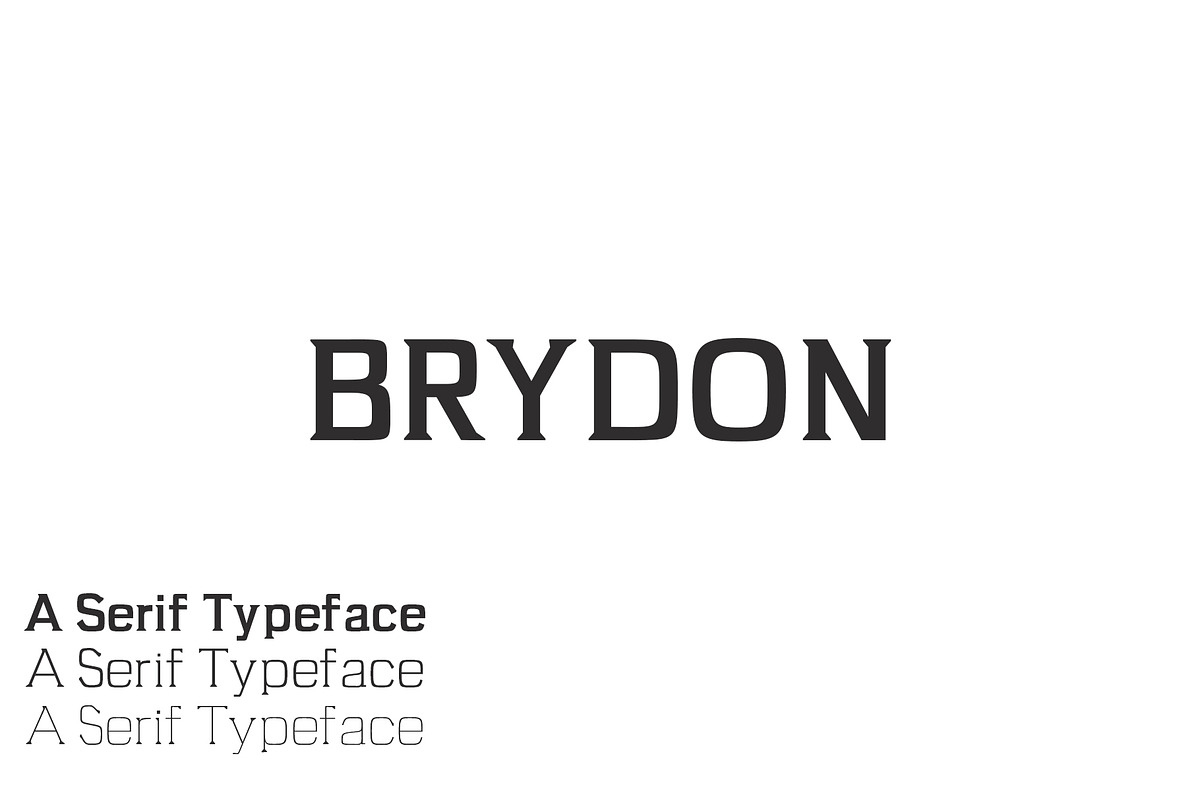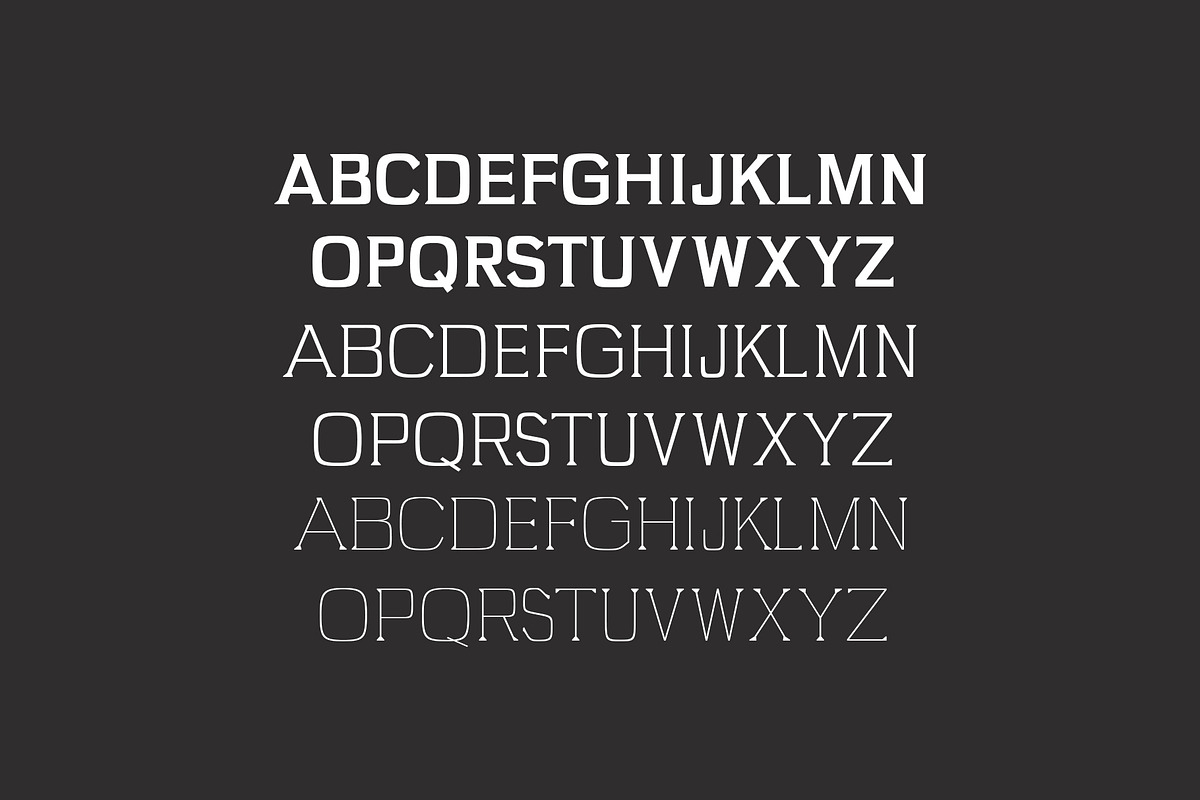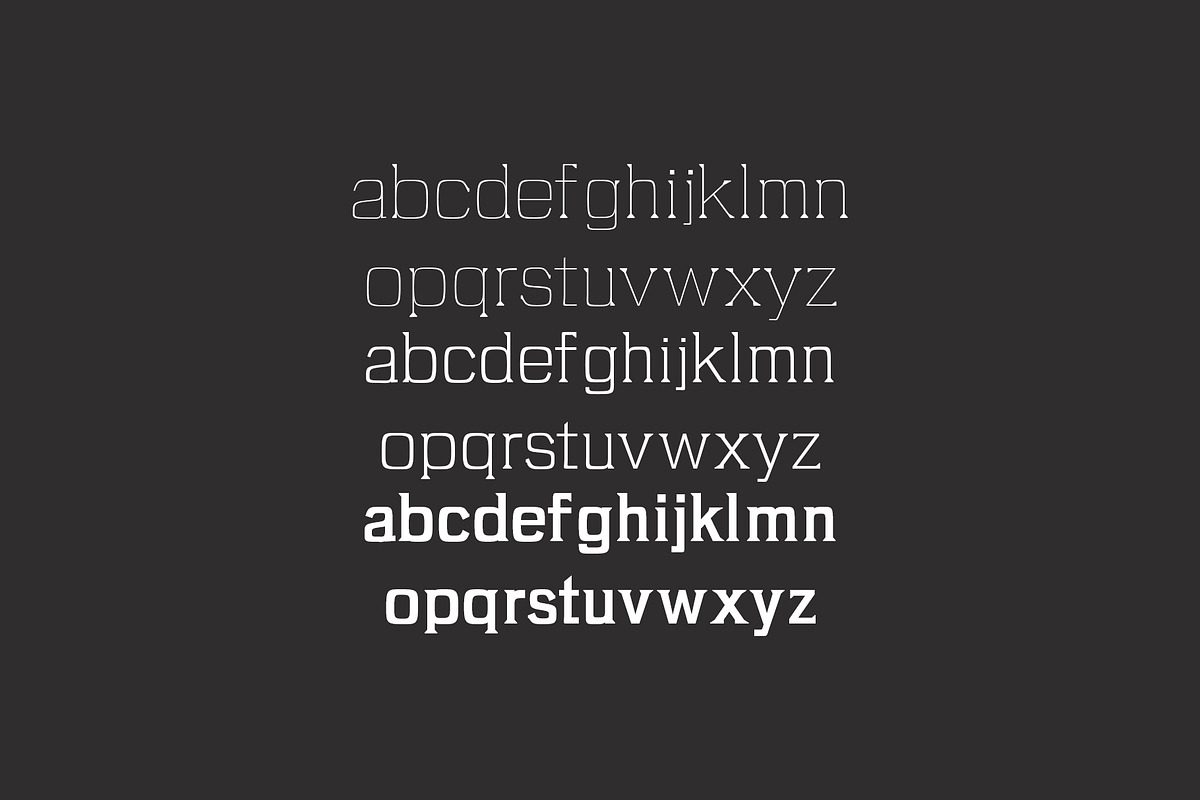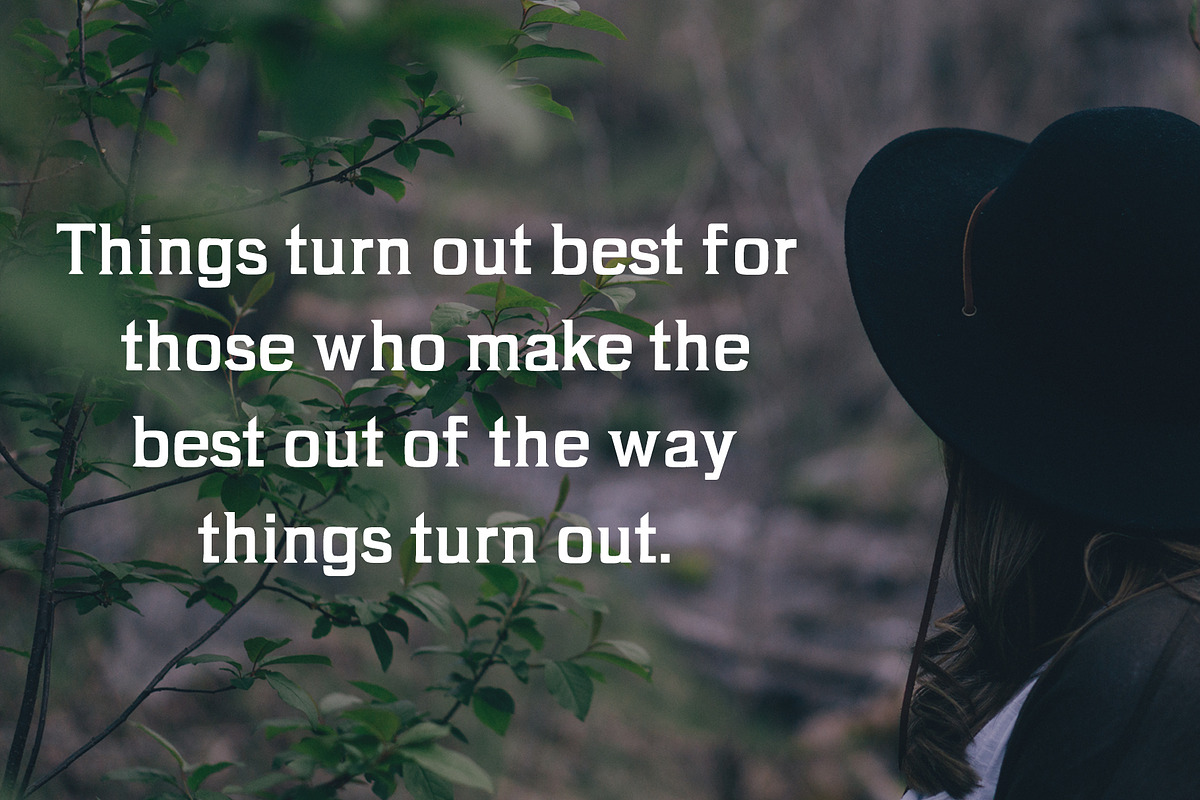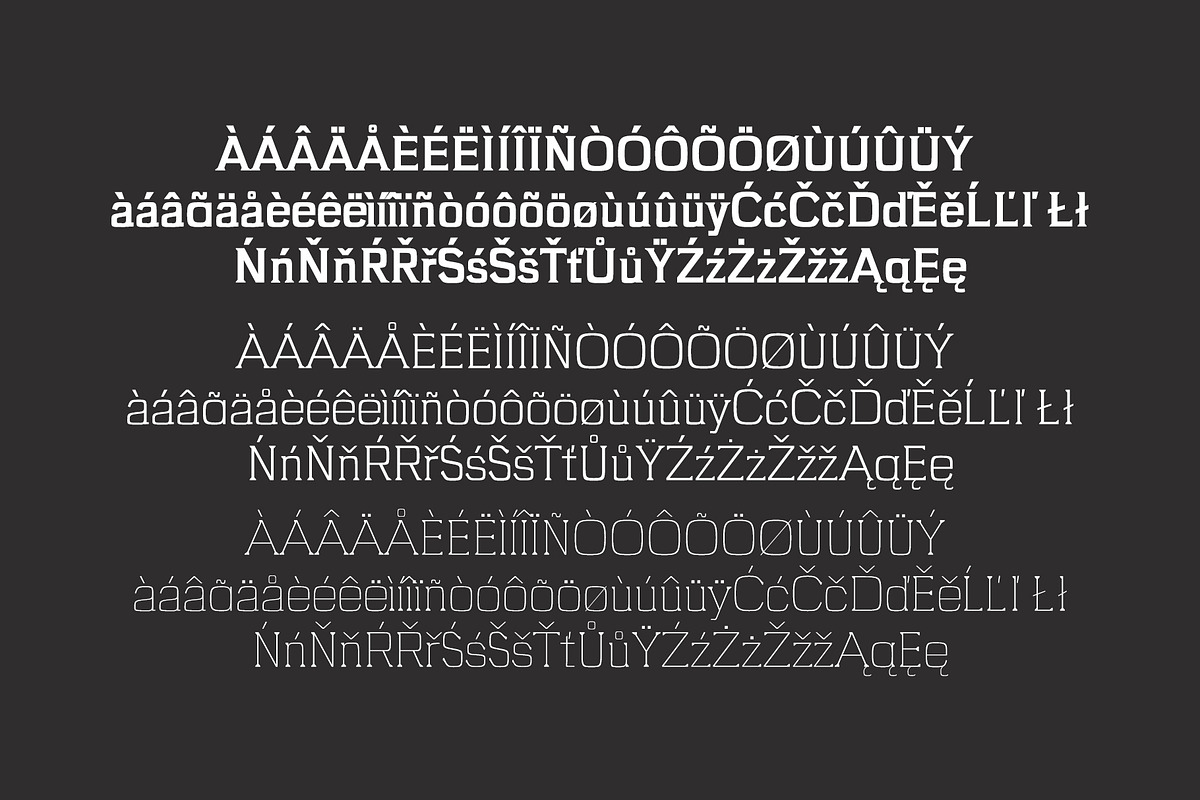
Brydon Serif Font Family Pack
Brydon Serif Typeface is a simple serif font family, which contains 3 weights and It features unique and modern serif look and feel. Perfect for gorgeous logos, titles, web layouts and branding. It looks gorgeous in all caps with a wide-set spacing if you want to try a classy look, or beautiful on its own in capital and lowercase letters for something completely timeless.
Font Weight: Regular, Thin and Light
Brydon Font Features:
- Brydon Serif Typeface is a simple serif font family, which contains 3 weights and It features unique and modern serif look and feel.